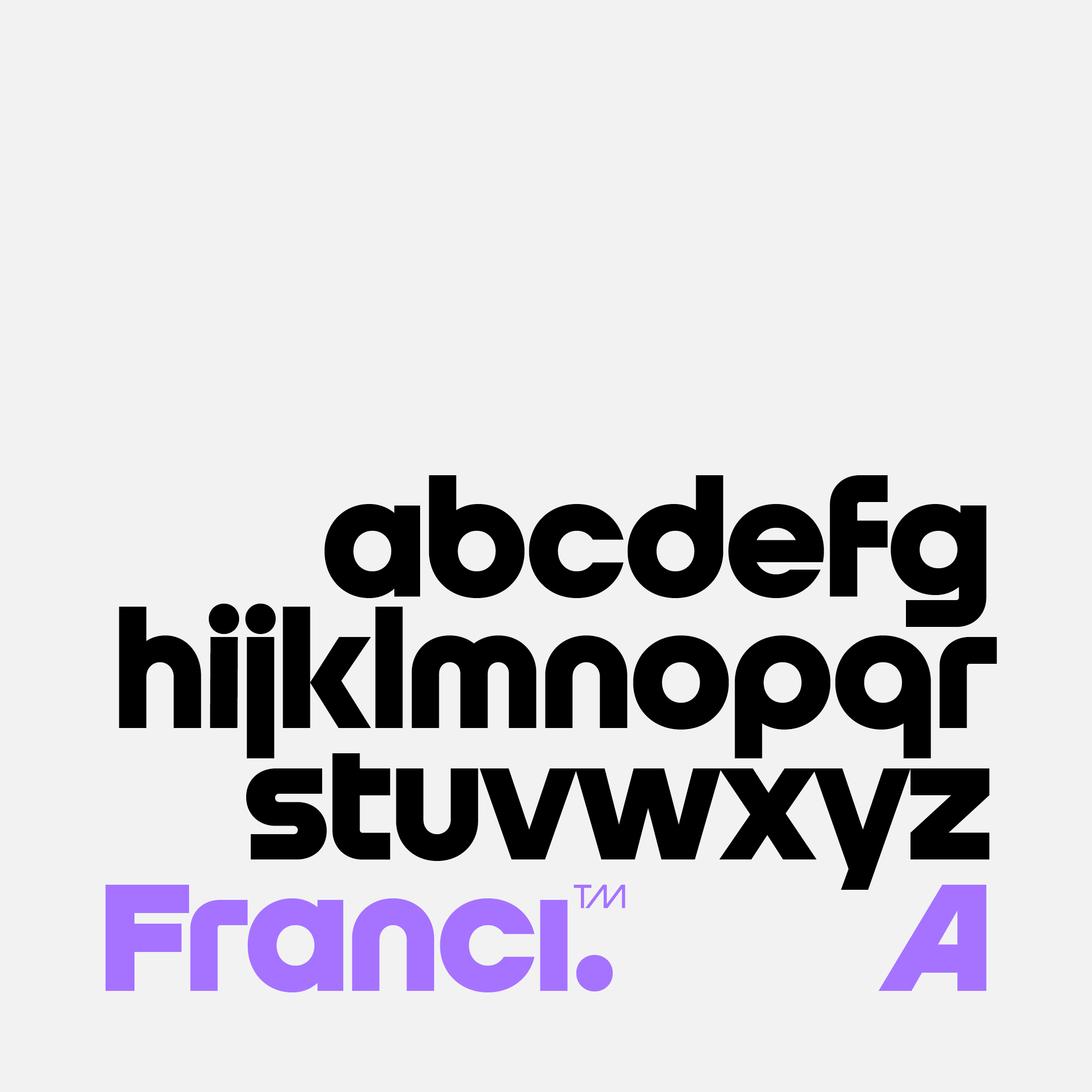
Franci subtly captures the essence of the geometric aesthetic. This typeface, characterized by its elemental simplicity, strikes a harmonious balance between boldness and subtle precision. Franci is a sequel to the Ladislav typeface, a humble homage to the typography of Ladislav Sutnar. Elaborating further on its potential, it moves forward in time visually, touching the typography of Herb Lubalin and admiring the constructed typefaces of Aldo Novarese. In styles ranging from Light to Black, Franci is exhibited in two families, A and B, where the alternation of most characters results in a completely different aesthetic impression. Yet together they form a harmonious whole and are ideal for combined typography. In an era of constantly evolving design, Franci appears to be a simple but distinctive typeface that handles a variety of uses effortlessly. Its geometric precision, clean lines, and uniform shapes give it a timeless appeal. Franci serves as a precise tool for communicating messages with a subtle sense of humor. This typeface celebrates the beauty of simplicity in typography and demonstrates how even subtle elements can have a significant impact on visual communication.